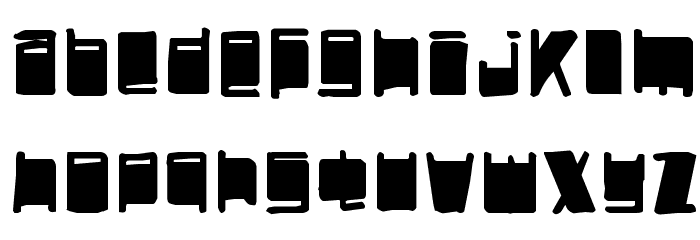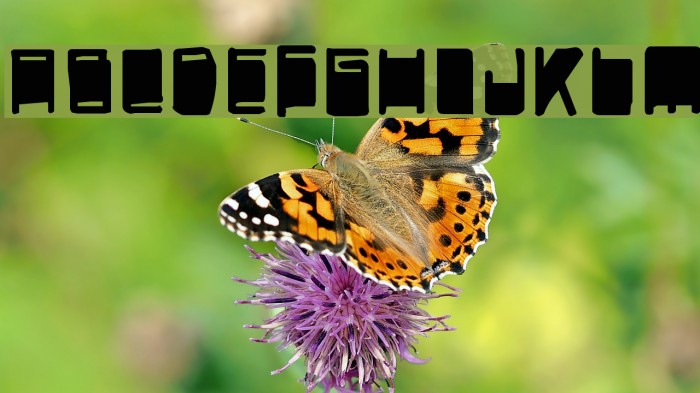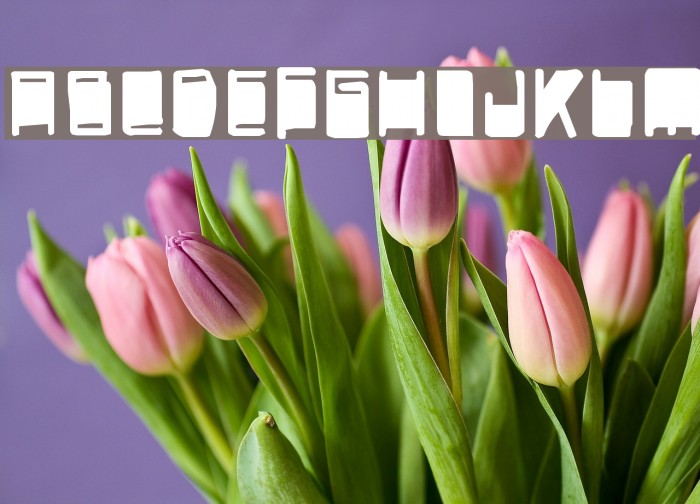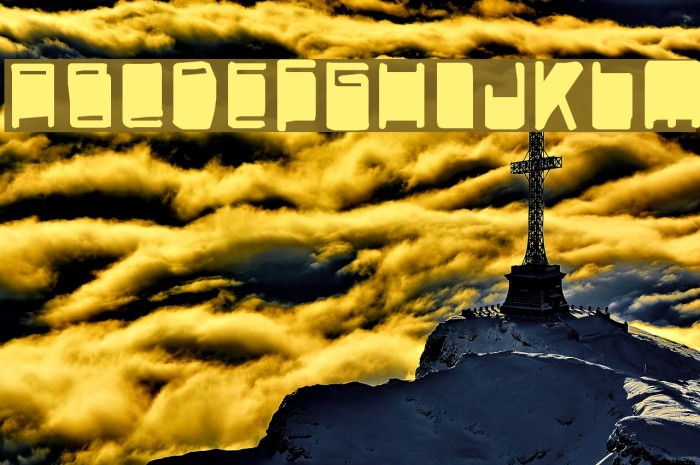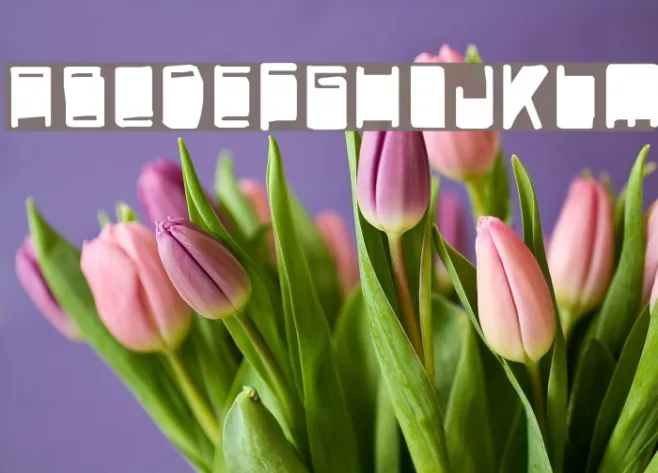
SexShop Font
This font features a bold and blocky design with a playful and quirky style. The characters are heavily stylized, with thick strokes and unique shapes that give each letter a distinct personality. The uppercase and lowercase letters maintain a consistent width, creating a uniform appearance across the text. The numbers follow the same bold style, ensuring readability while maintaining the font's unique character. Special characters are creatively designed, adding to the font's overall playful aesthetic. The font's design is reminiscent of retro or vintage styles, making it suitable for projects that require a fun and eye-catching typeface.
A bold, blocky font with a playful and quirky style, perfect for retro-themed projects.
- Proposed Projects: Ideal for posters, logos, and branding materials that aim to capture attention with a fun and unique style.
- Overall Style: Retro, Playful